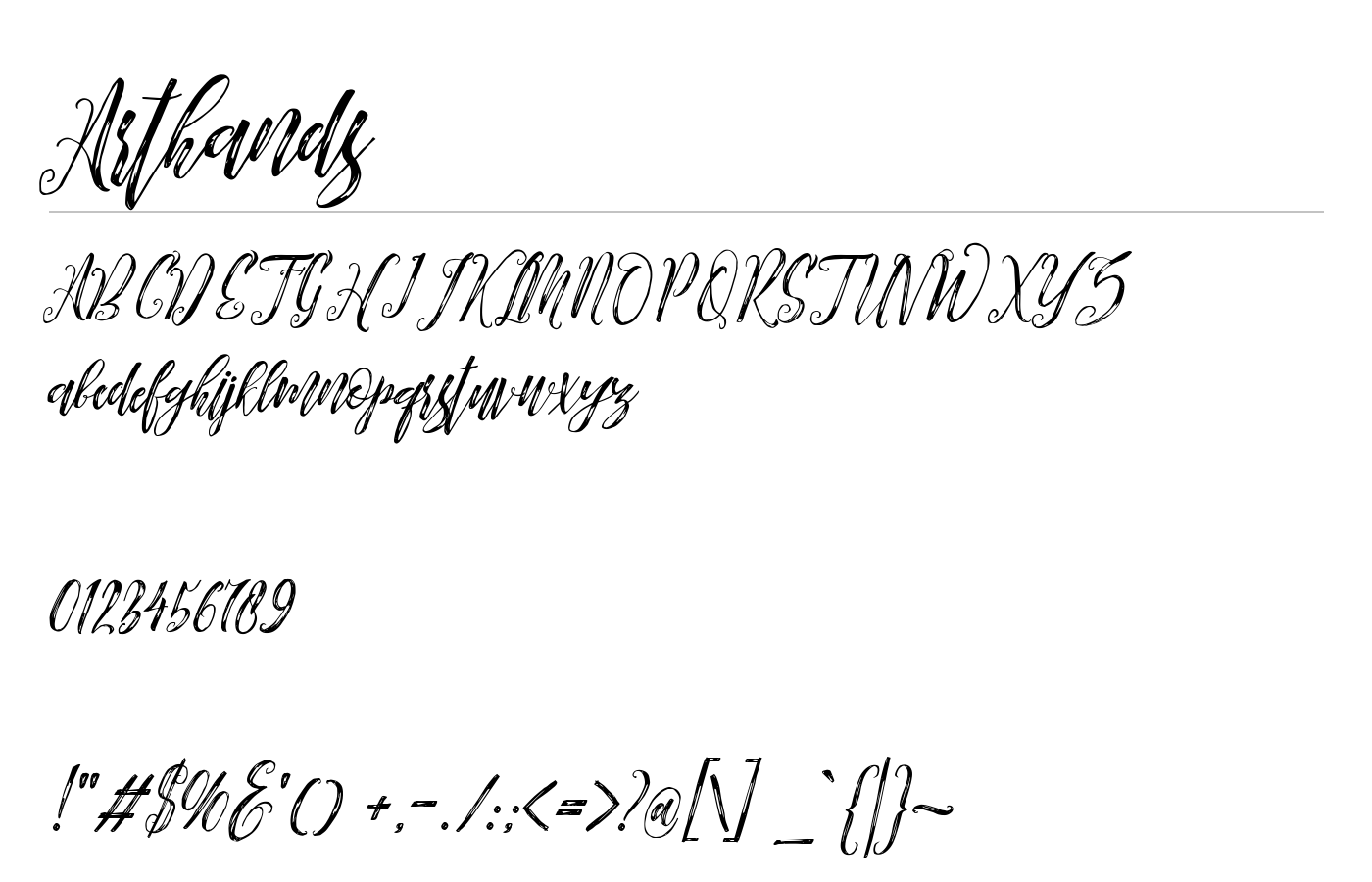
Arthands is a stylish script font with a flowing, hand-lettered feel that combines elegance and modern flair. Its varied stroke widths and graceful curves make it perfect for creative, feminine branding, invitations, and artistic projects where a personal, sophisticated touch is desired. This font shines best in headlines, logos, and decorative text, adding a chic and expressive character to any design.
Arthands Font
About Arthands Font